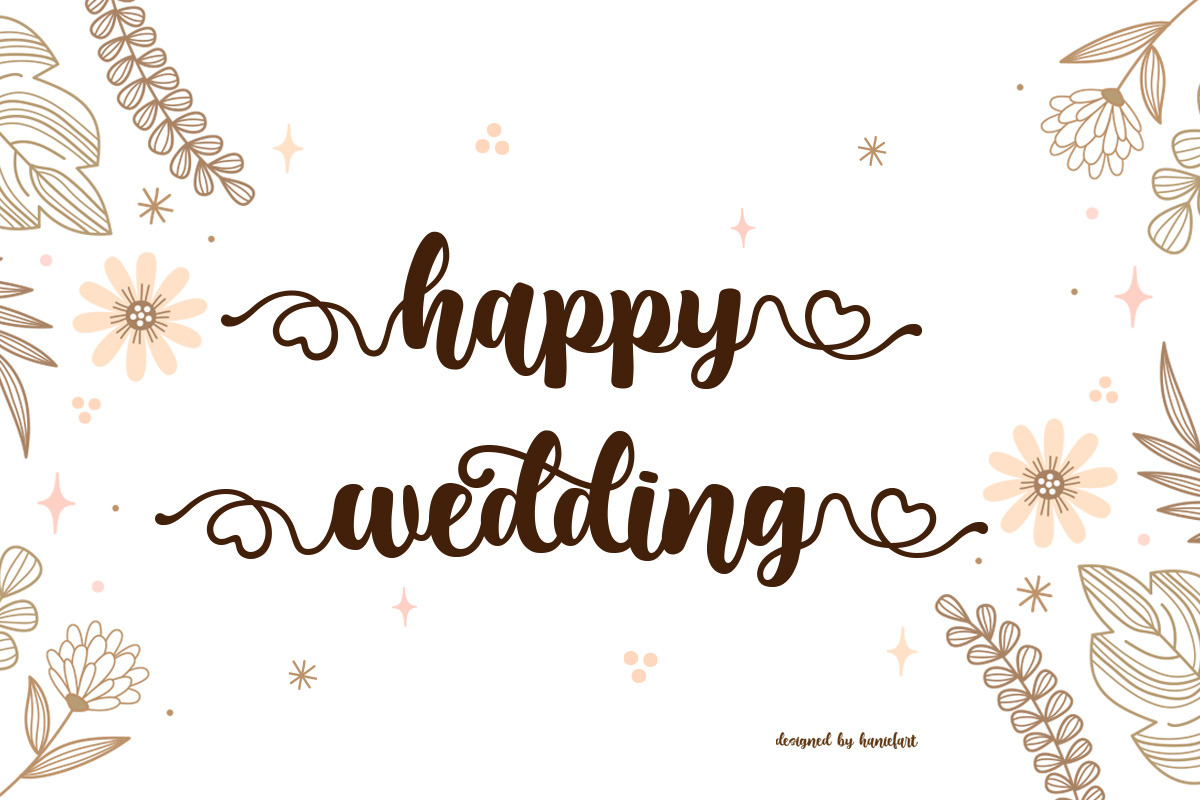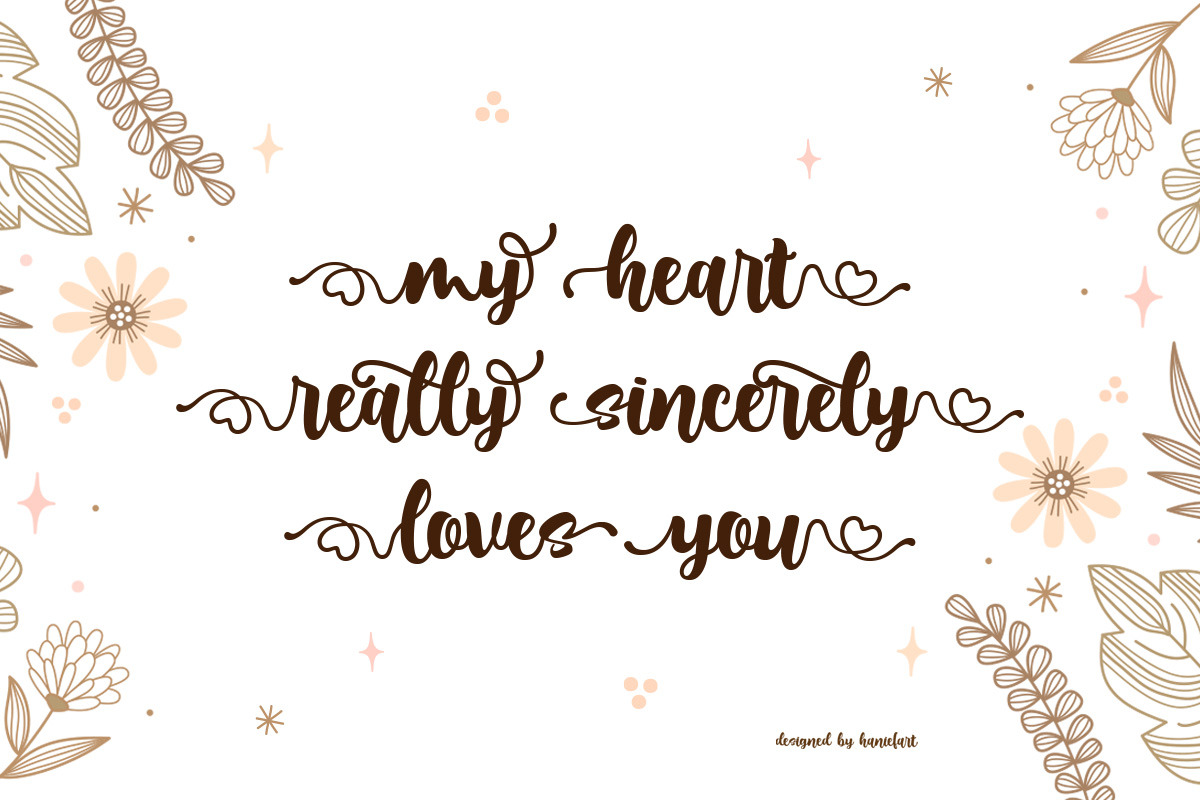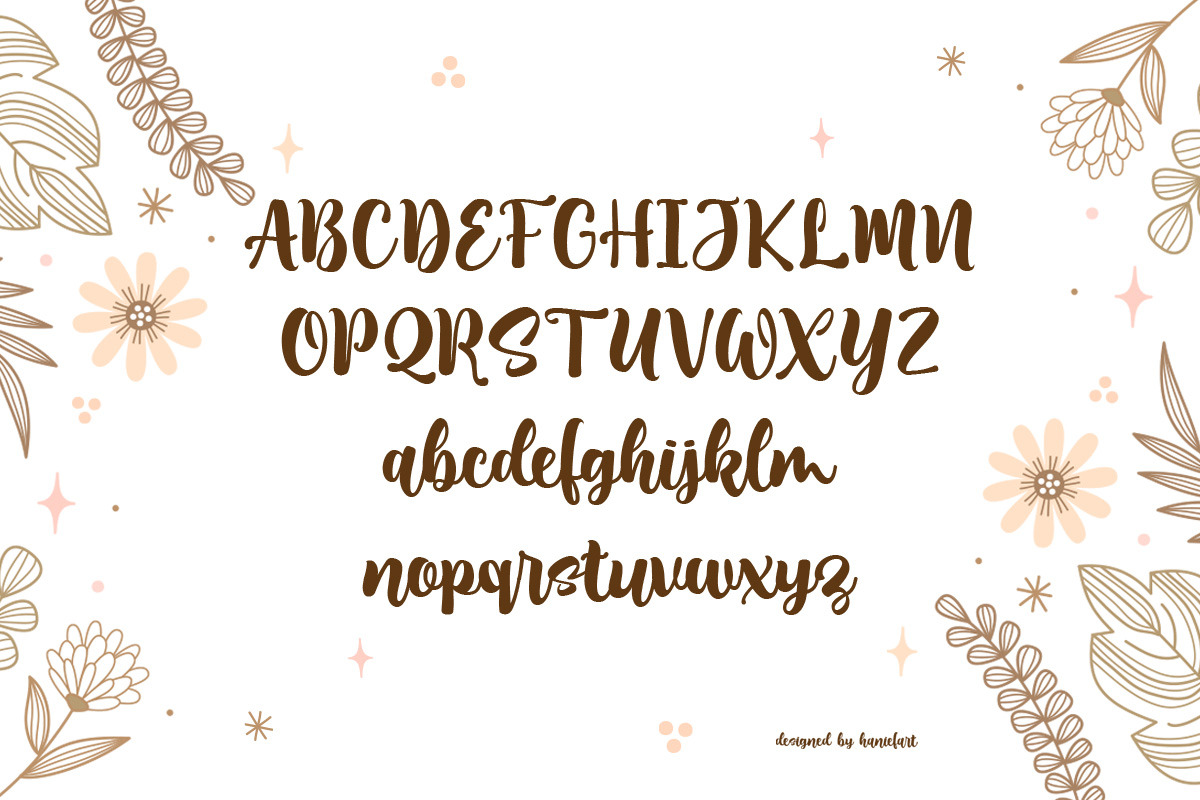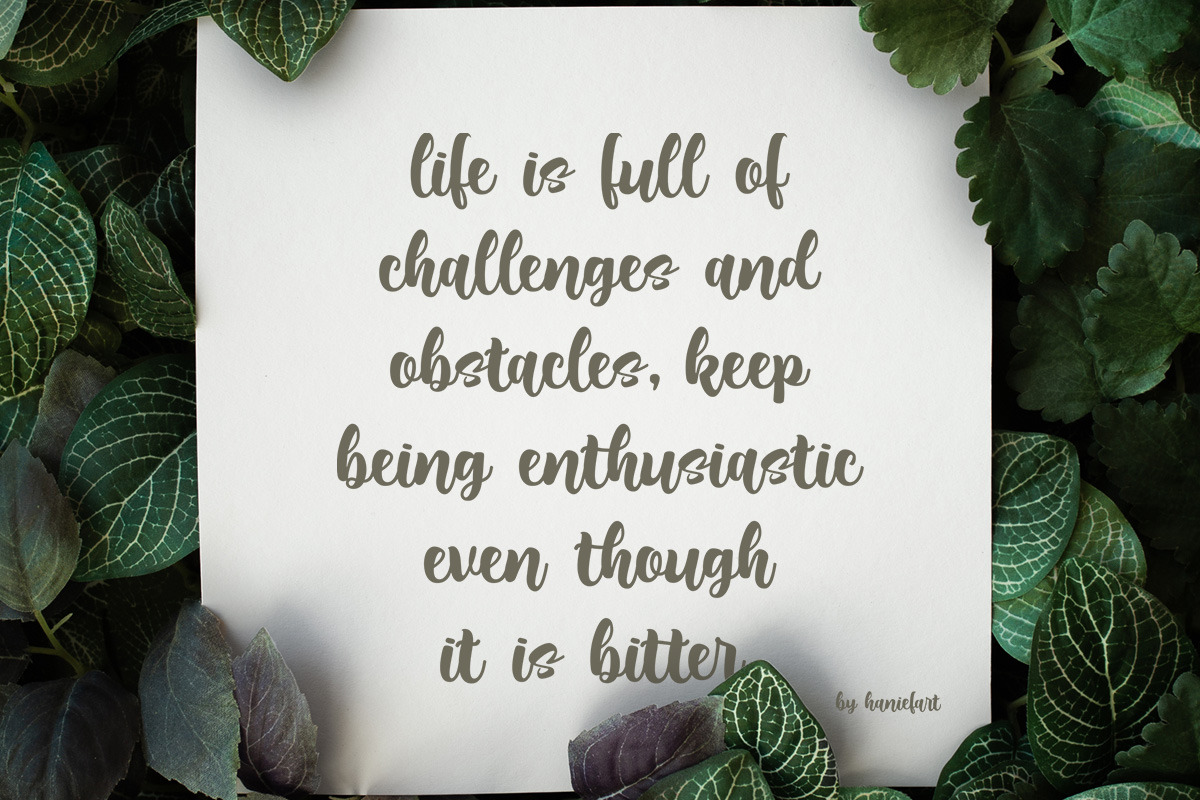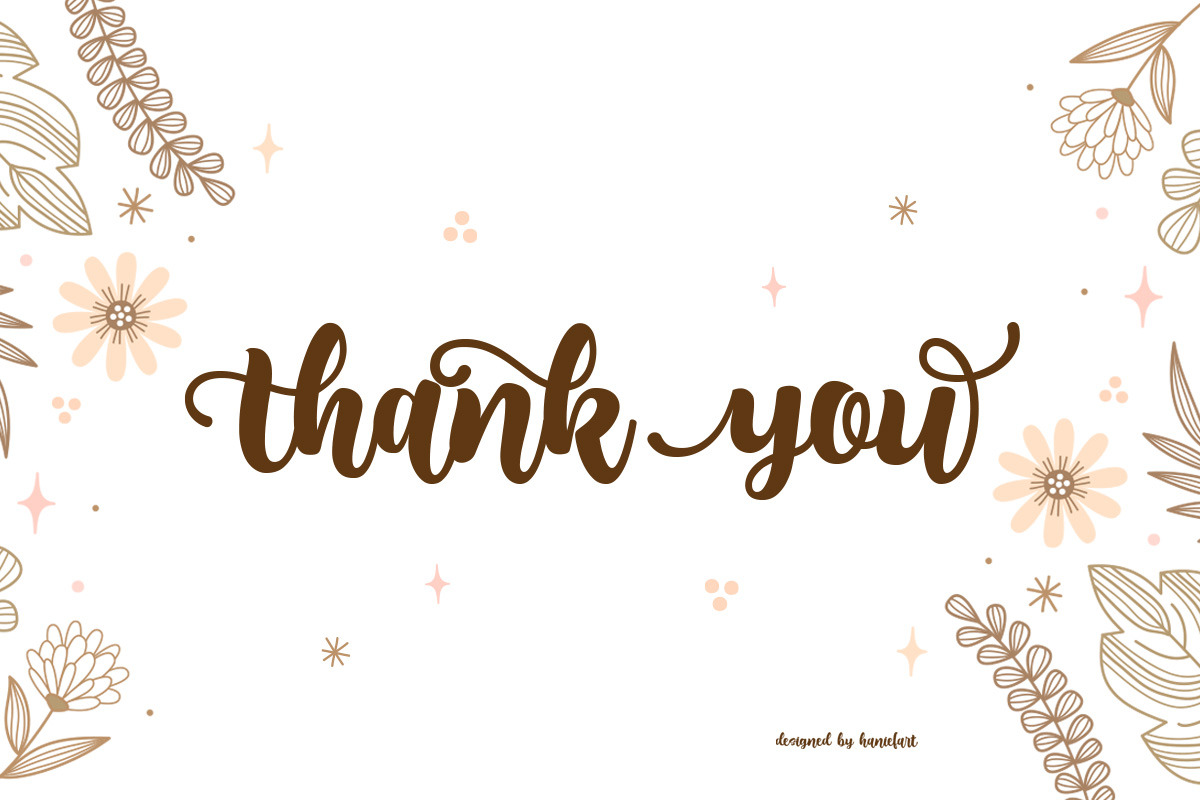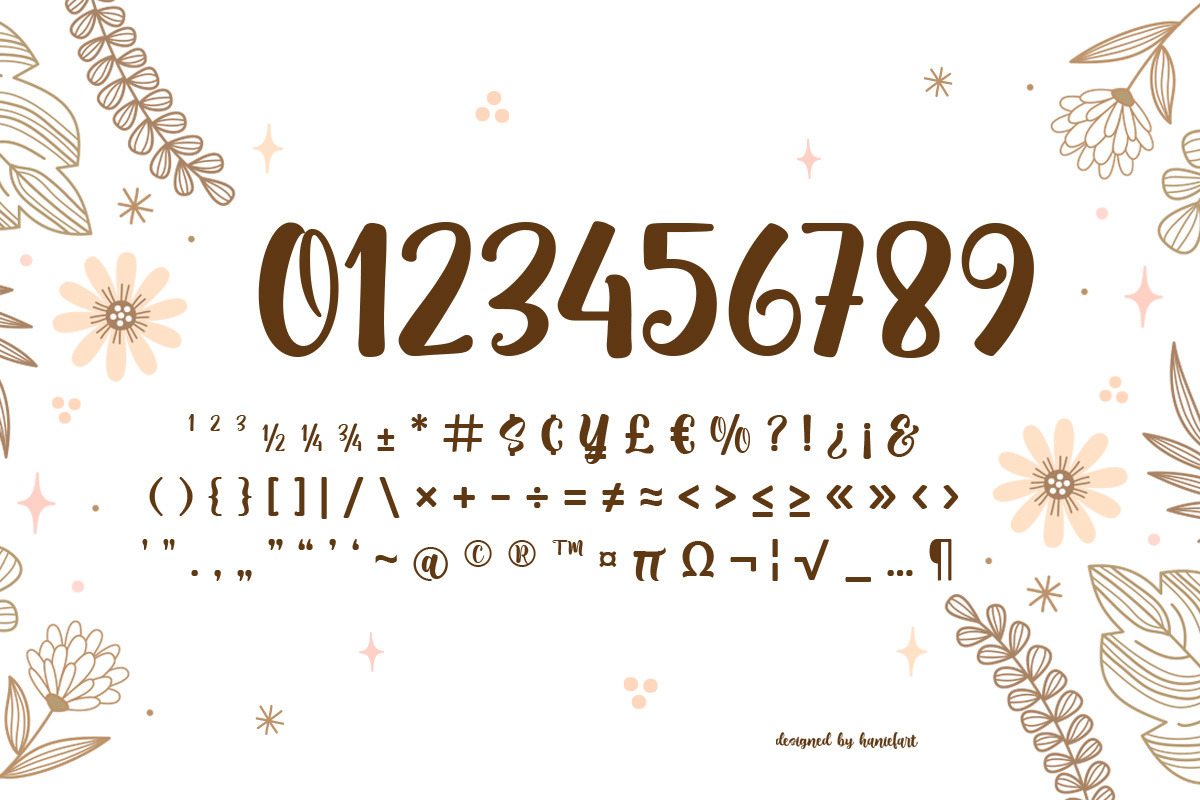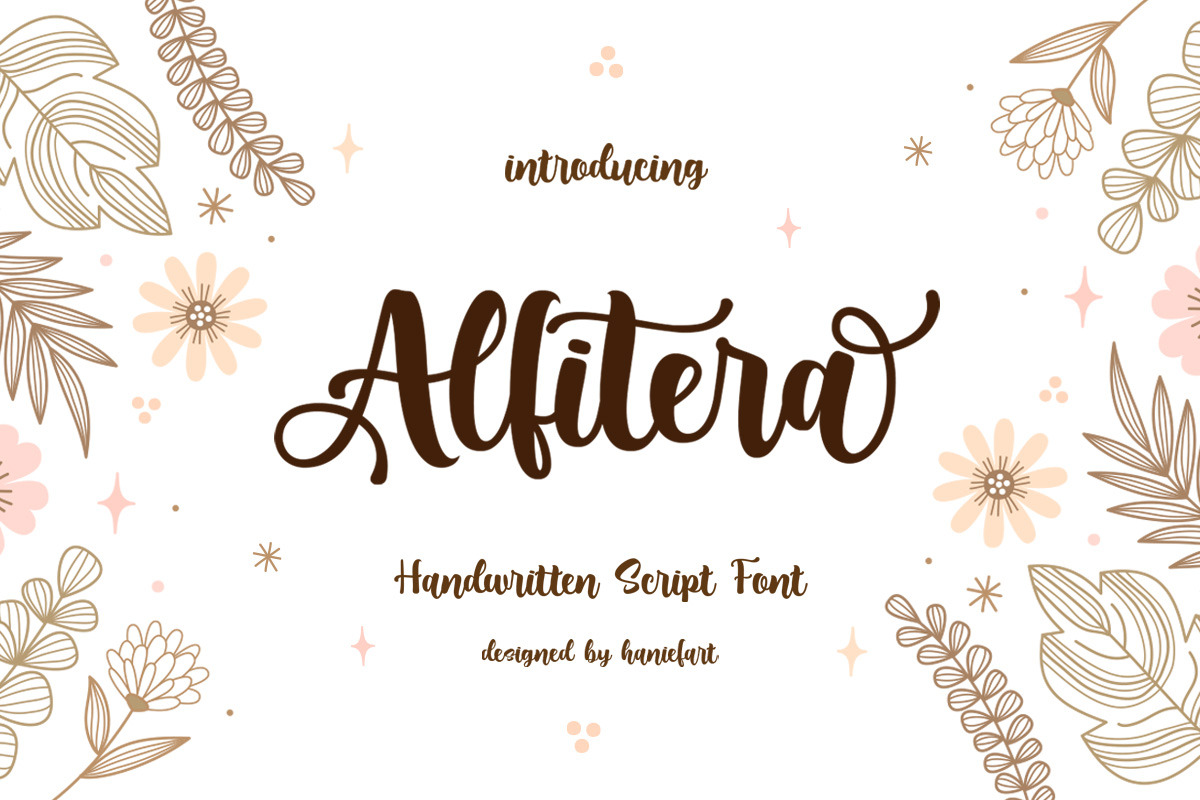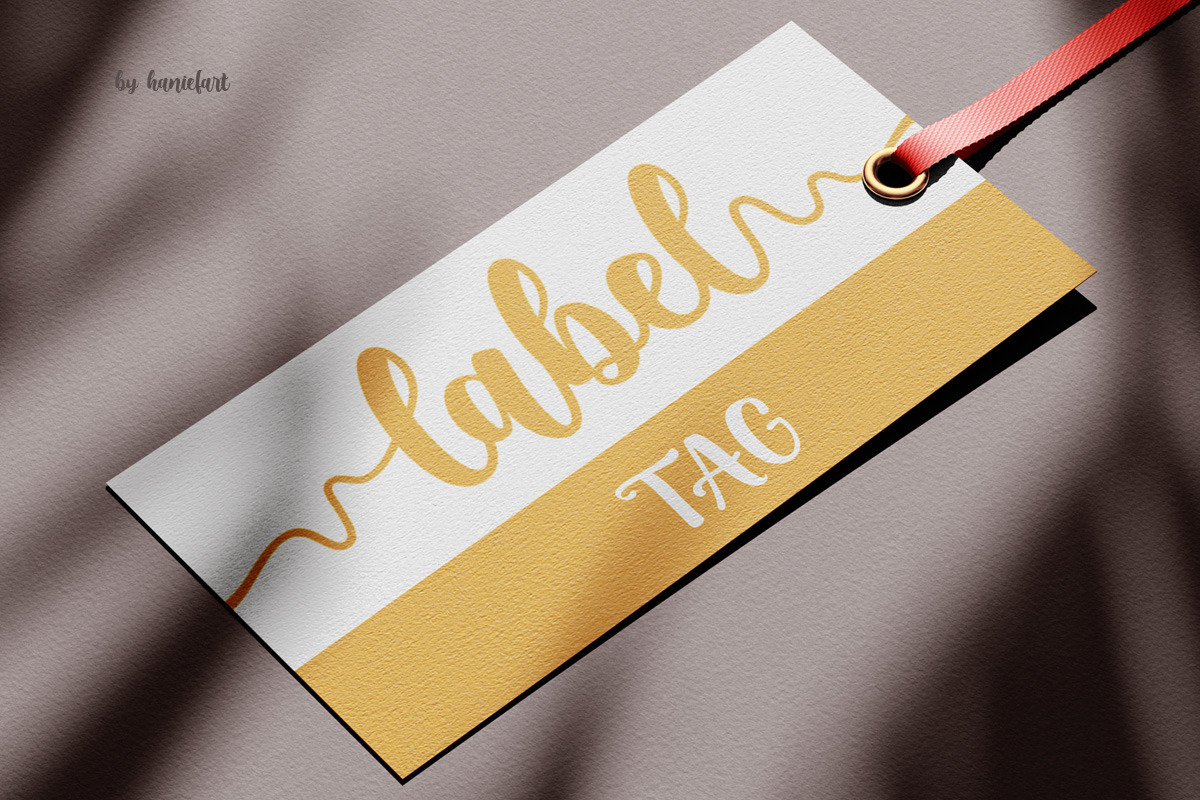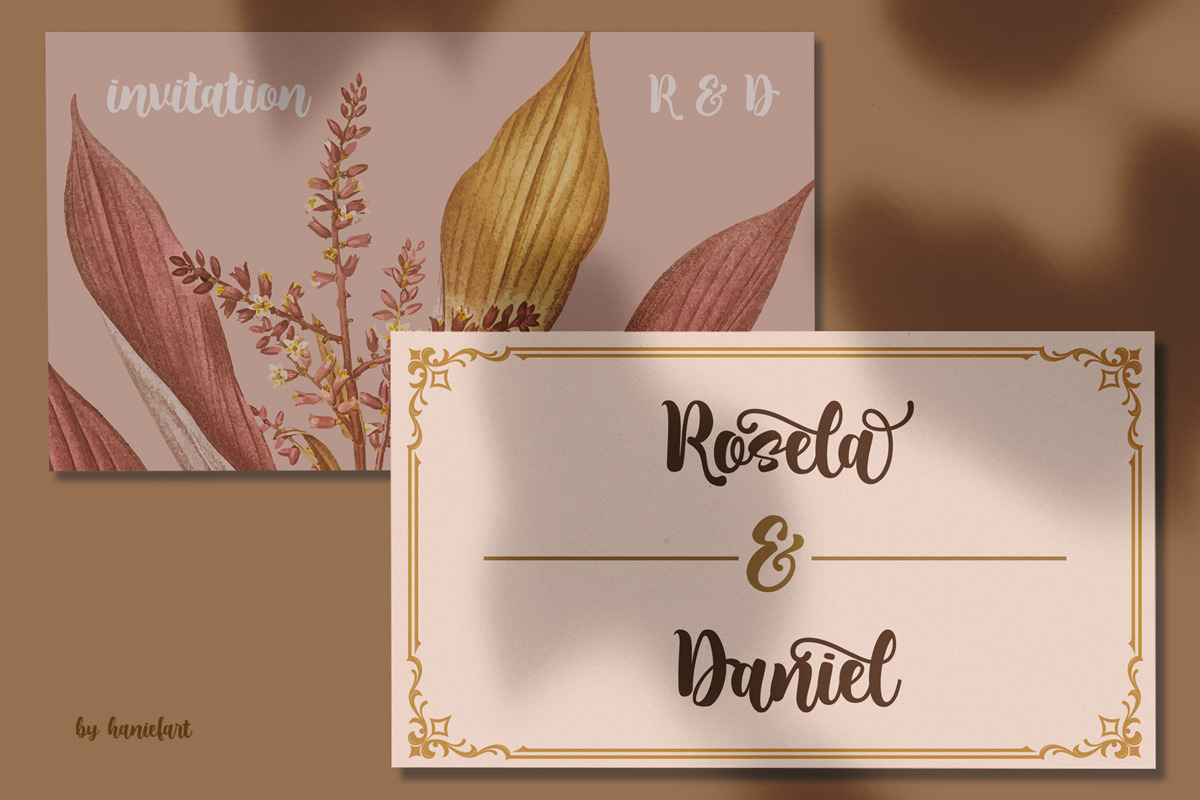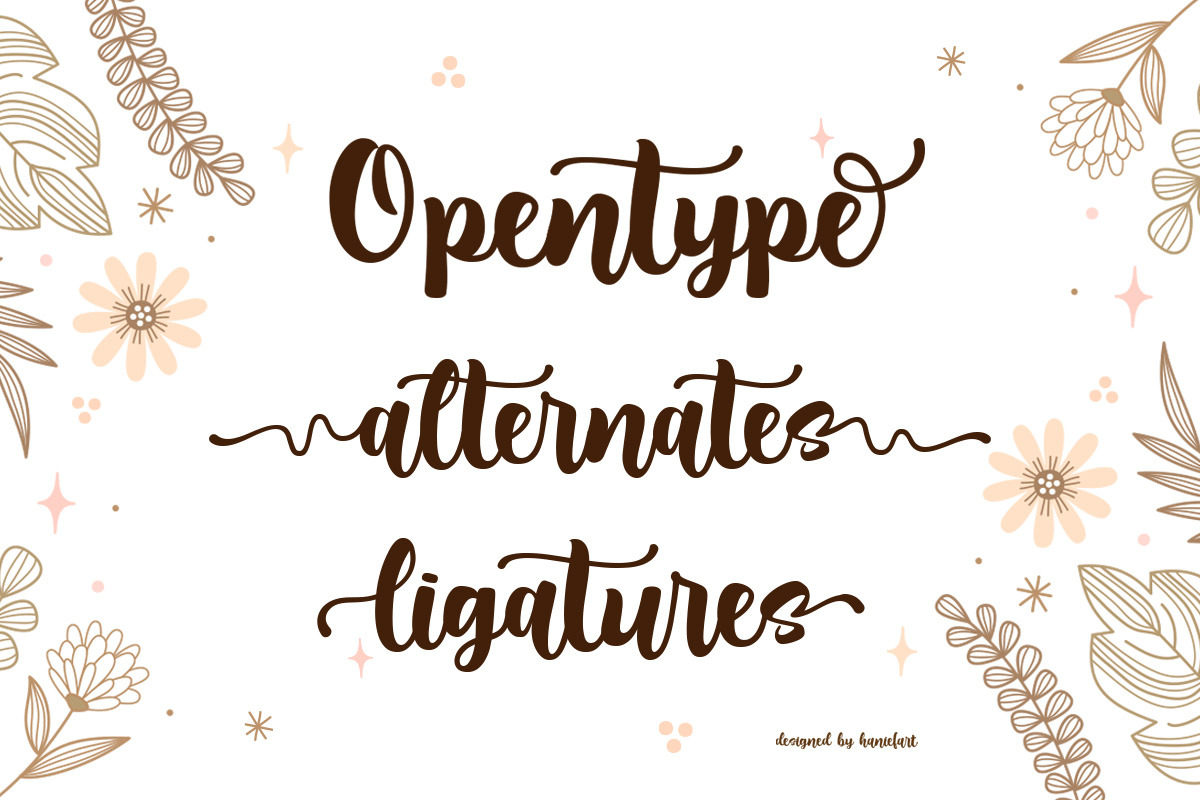
Alfitera - Script Font
Immerse yourself in the enchanting elegance of Alfitera, meticulously handcrafted to inject a touch of authenticity in your creative endeavors. Born of the intricate artistry of sign painting and branding, Alfitera offers an entrancing collection of unique characters intent on adding finesse to your masterpiece. This adaptable script typeface effortlessly weaves its way into your diverse projects, gifting a custom-made charisma that will undoubtedly intrigue and impress. Whether you’re crafting spellbinding invitation cards, stylizing a magazine for unforgettable allure, shaping fashion-forward garment patterns, handcrafting dynamic logos, or drafting irresistible flyers, Alfitera’s idiosyncratic charm is your ally in pushing creative boundaries. Enhance your creations with the distinguished personality of Alfitera.